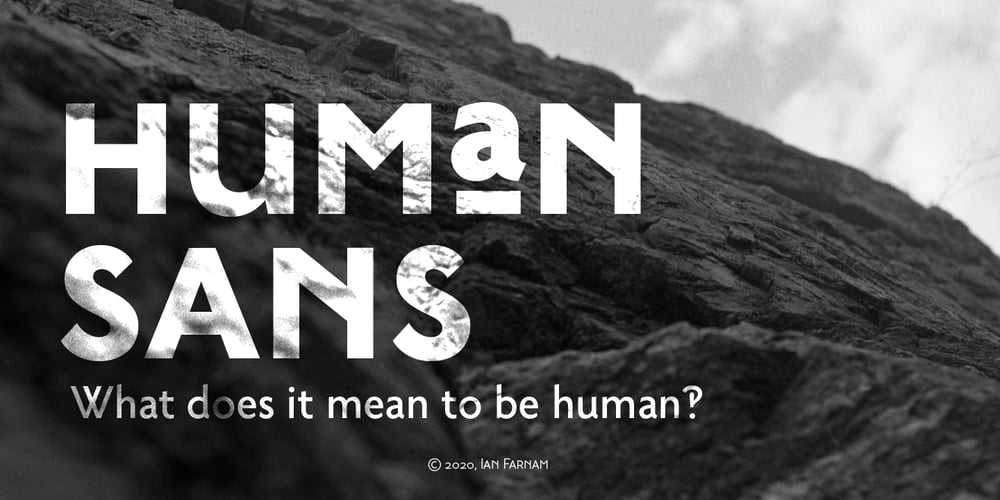
Human Sans Font Family was designed by Ian Farnam and published by Ian Farnam. Human Sans contains 18 styles and family package options. Human Sans is a humanist sans serif font created as an experiment. The goal, how much a simple substitution of a small set of characters could change a font’s nature. In its base form, Human Sans is a humanist sans serif geared toward text. However, through stylistic sets, it can adopt a myriad of different visual styles. This includes geometric alternates, uncials alternates, contextual swash caps, and the high and low midlines, typically seen in Art Deco lettering. These features are combinable for whatever look you may need. Human Sans comes with a full set of diacritics, in 9 weights and corresponding Italics.